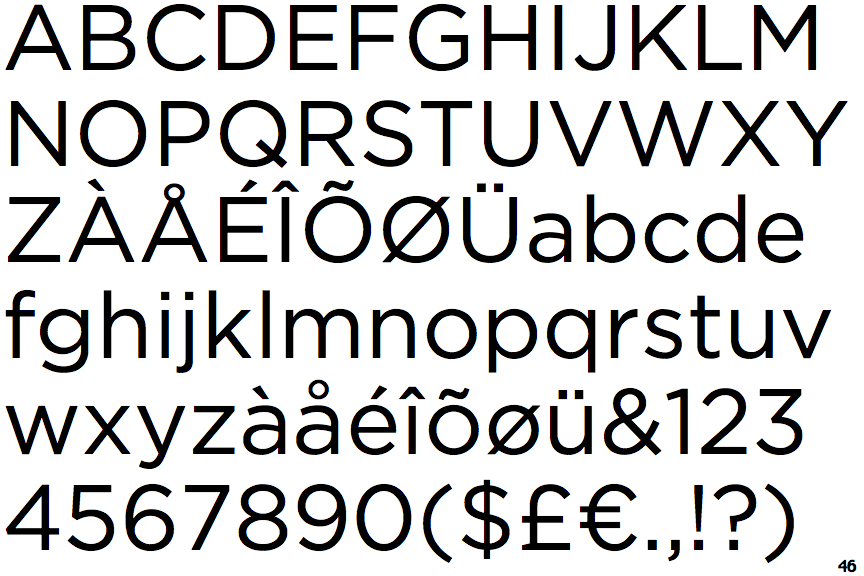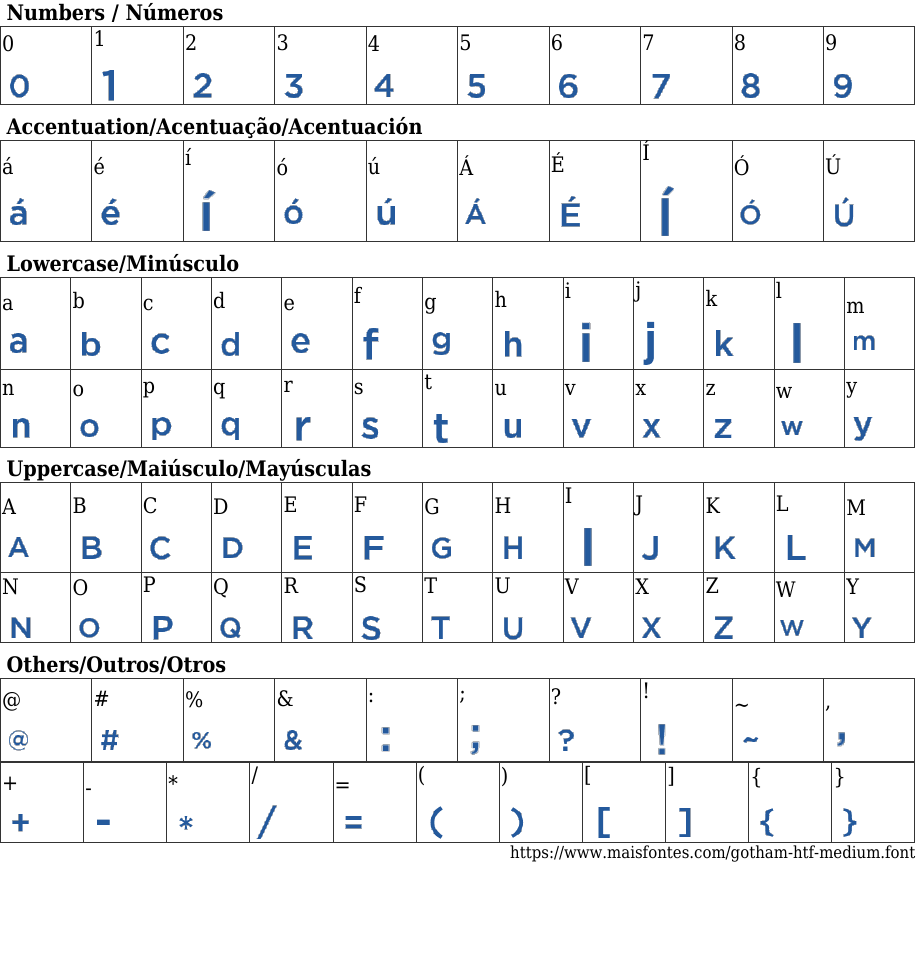
Gotham Htf Font
Gotham Htf Font - Onlinewebfonts.com is internet most popular font online download website,offers more than 8,000,000 desktop and web font products for you to preview and download. Gotham htf font family series mainly provide medium italic,medium,bold italic,bold and other font styles. Gotham htf simply means an old version of the gotham typeface. Here are some fonts similar to gotham htf.
Gotham htf font family series mainly provide medium italic,medium,bold italic,bold and other font styles. Onlinewebfonts.com is internet most popular font online download website,offers more than 8,000,000 desktop and web font products for you to preview and download. Here are some fonts similar to gotham htf. Gotham htf simply means an old version of the gotham typeface.
Onlinewebfonts.com is internet most popular font online download website,offers more than 8,000,000 desktop and web font products for you to preview and download. Gotham htf font family series mainly provide medium italic,medium,bold italic,bold and other font styles. Here are some fonts similar to gotham htf. Gotham htf simply means an old version of the gotham typeface.
Here are some fonts similar to gotham htf. Gotham htf font family series mainly provide medium italic,medium,bold italic,bold and other font styles. Onlinewebfonts.com is internet most popular font online download website,offers more than 8,000,000 desktop and web font products for you to preview and download. Gotham htf simply means an old version of the gotham typeface.
Gotham htf simply means an old version of the gotham typeface. Gotham htf font family series mainly provide medium italic,medium,bold italic,bold and other font styles. Onlinewebfonts.com is internet most popular font online download website,offers more than 8,000,000 desktop and web font products for you to preview and download. Here are some fonts similar to gotham htf.
Here are some fonts similar to gotham htf. Onlinewebfonts.com is internet most popular font online download website,offers more than 8,000,000 desktop and web font products for you to preview and download. Gotham htf font family series mainly provide medium italic,medium,bold italic,bold and other font styles. Gotham htf simply means an old version of the gotham typeface.
Gotham htf simply means an old version of the gotham typeface. Gotham htf font family series mainly provide medium italic,medium,bold italic,bold and other font styles. Onlinewebfonts.com is internet most popular font online download website,offers more than 8,000,000 desktop and web font products for you to preview and download. Here are some fonts similar to gotham htf.
Gotham htf font family series mainly provide medium italic,medium,bold italic,bold and other font styles. Here are some fonts similar to gotham htf. Gotham htf simply means an old version of the gotham typeface. Onlinewebfonts.com is internet most popular font online download website,offers more than 8,000,000 desktop and web font products for you to preview and download.
Here are some fonts similar to gotham htf. Onlinewebfonts.com is internet most popular font online download website,offers more than 8,000,000 desktop and web font products for you to preview and download. Gotham htf font family series mainly provide medium italic,medium,bold italic,bold and other font styles. Gotham htf simply means an old version of the gotham typeface.
Gotham Htf Book Condensed Font casinisn
Gotham htf font family series mainly provide medium italic,medium,bold italic,bold and other font styles. Onlinewebfonts.com is internet most popular font online download website,offers more than 8,000,000 desktop and web font products for you to preview and download. Gotham htf simply means an old version of the gotham typeface. Here are some fonts similar to gotham htf.
Gotham htf black font droearly
Gotham htf font family series mainly provide medium italic,medium,bold italic,bold and other font styles. Gotham htf simply means an old version of the gotham typeface. Here are some fonts similar to gotham htf. Onlinewebfonts.com is internet most popular font online download website,offers more than 8,000,000 desktop and web font products for you to preview and download.
Gotham HTF Medium Free Font Download MaisFontes
Gotham htf simply means an old version of the gotham typeface. Onlinewebfonts.com is internet most popular font online download website,offers more than 8,000,000 desktop and web font products for you to preview and download. Here are some fonts similar to gotham htf. Gotham htf font family series mainly provide medium italic,medium,bold italic,bold and other font styles.
Gotham Htf Simply Means An Old Version Of The Gotham Typeface.
Here are some fonts similar to gotham htf. Onlinewebfonts.com is internet most popular font online download website,offers more than 8,000,000 desktop and web font products for you to preview and download. Gotham htf font family series mainly provide medium italic,medium,bold italic,bold and other font styles.